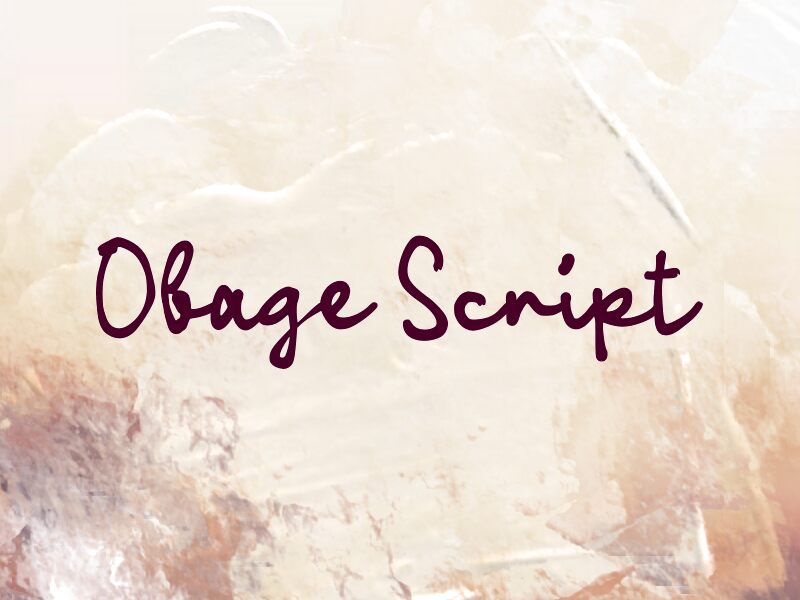
Obage Script font by wep offers users a free handwritten style inspired by the natural gestures of handwriting. The font’s casual feel, warm mood, and organic movements give it an expressive personality and inviting appearance that is both artistic and modern. Obage Script can be used to decorate digital and printed projects alongside other graphic and visual design elements.
Include this font in the branding of cafes and supermarkets, casual publications, posters, cards, and informal websites. The font also suits businesses within the artistic field such as art supply companies and art galleries.
Obage Script is a beautifully crafted free font that adds elegance to any design project. With its intricate curves and stylish letterforms, this font is perfect for invitations, branding, and more. Download Obage Script for free and elevate your creative work with this eye-catching typeface.